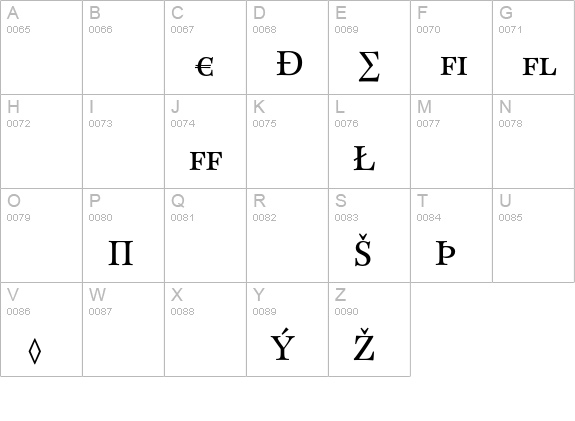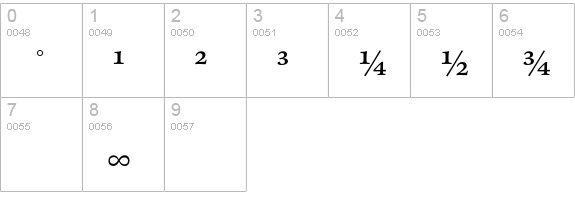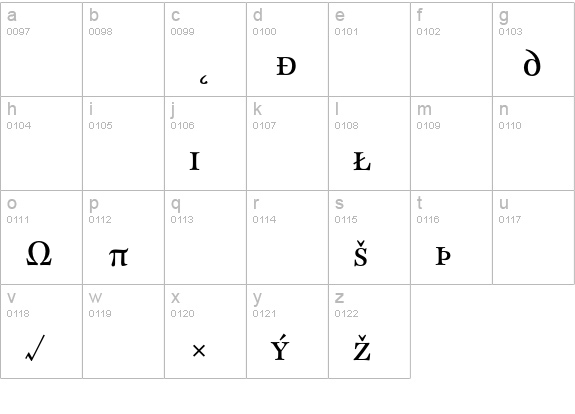
CliffordEighteen-CapsExpert font is a sophisticated and stylish typeface that exudes elegance and professionalism. With its bold and distinctive characters, this font is perfect for making a statement in headlines, logos, and branding materials. The sharp, angular design of the letters gives it a modern and edgy look, making it stand out from the crowd. What sets CliffordEighteen-CapsExpert font apart is that it is available for free download at FontsMarket.com. This means that you can easily access this high-quality font without any cost, making it a valuable addition to your design toolkit. Whether you're working on a creative project or a professional presentation, CliffordEighteen-CapsExpert font is sure to make a lasting impression. Download it today and elevate your designs with this stunning typeface.